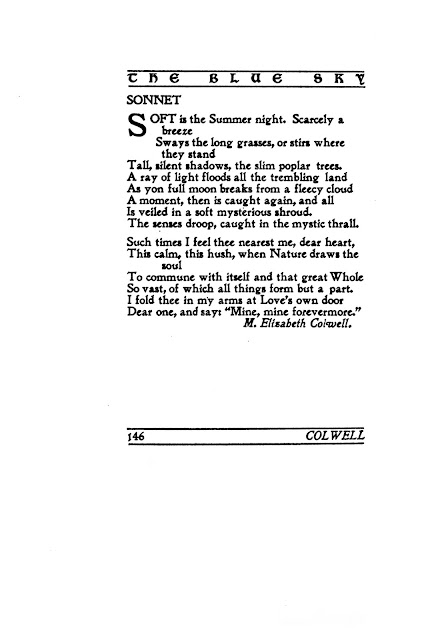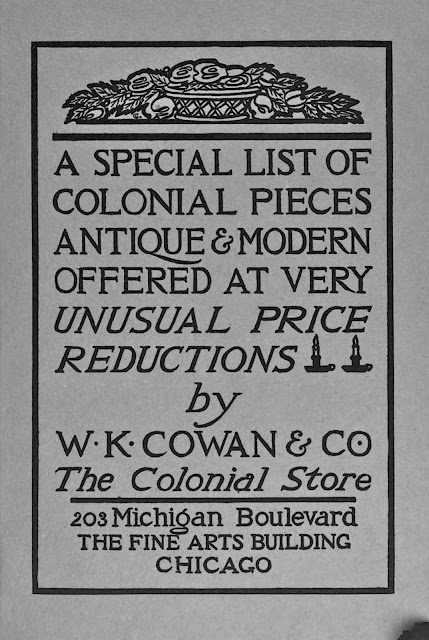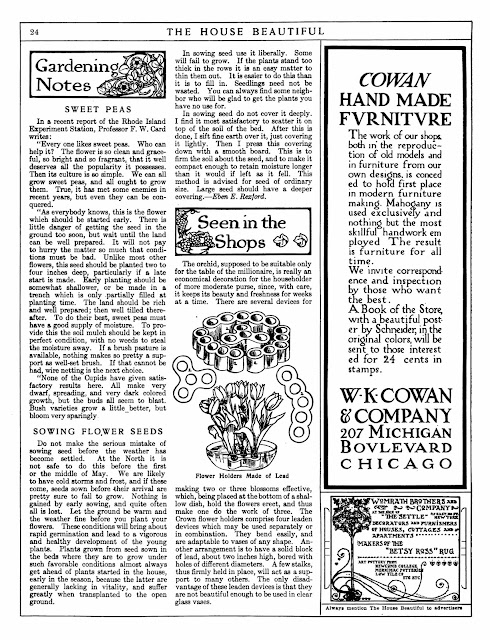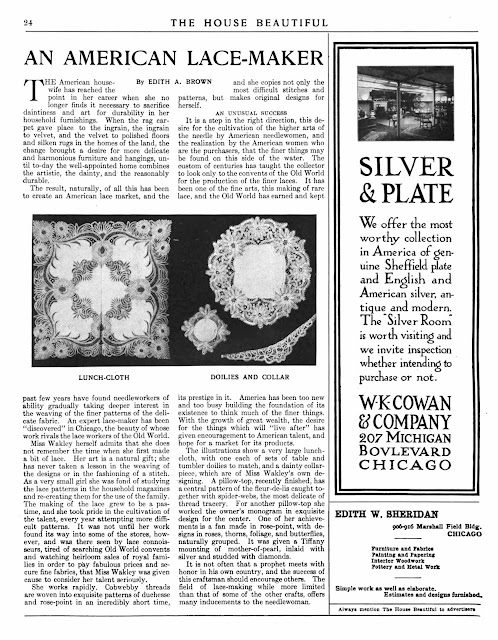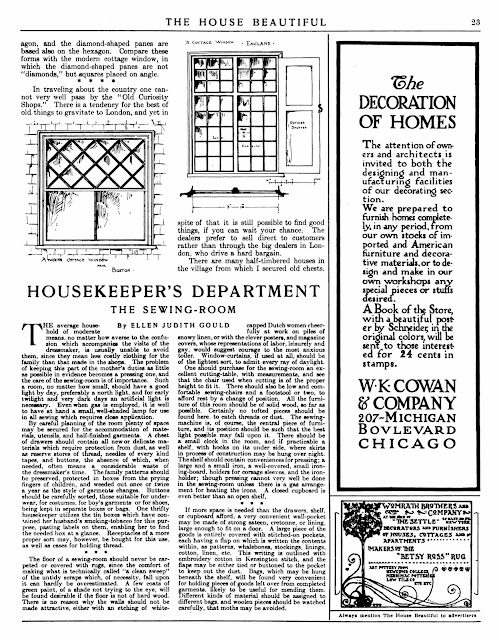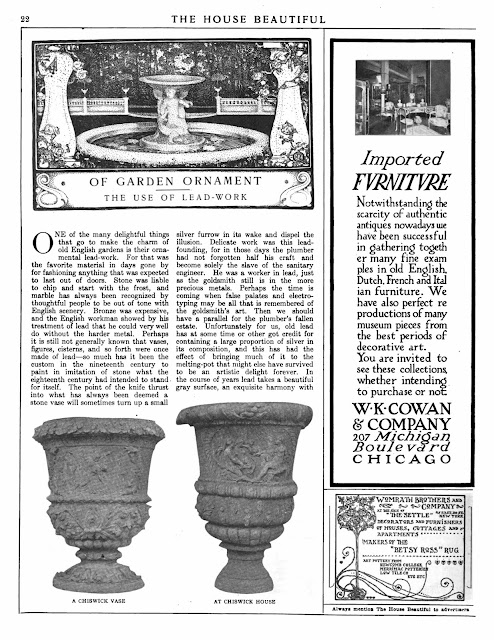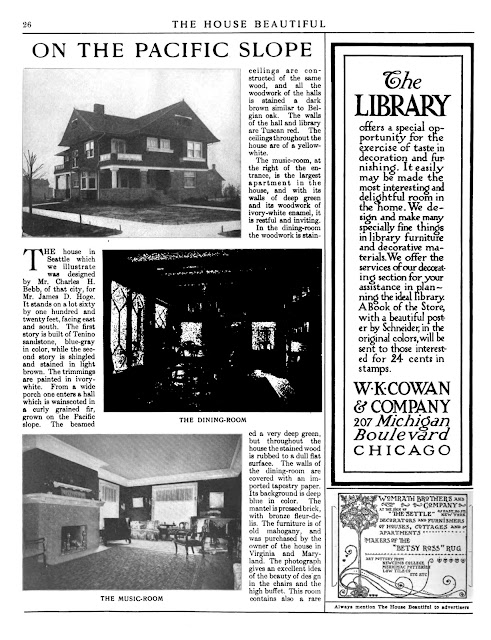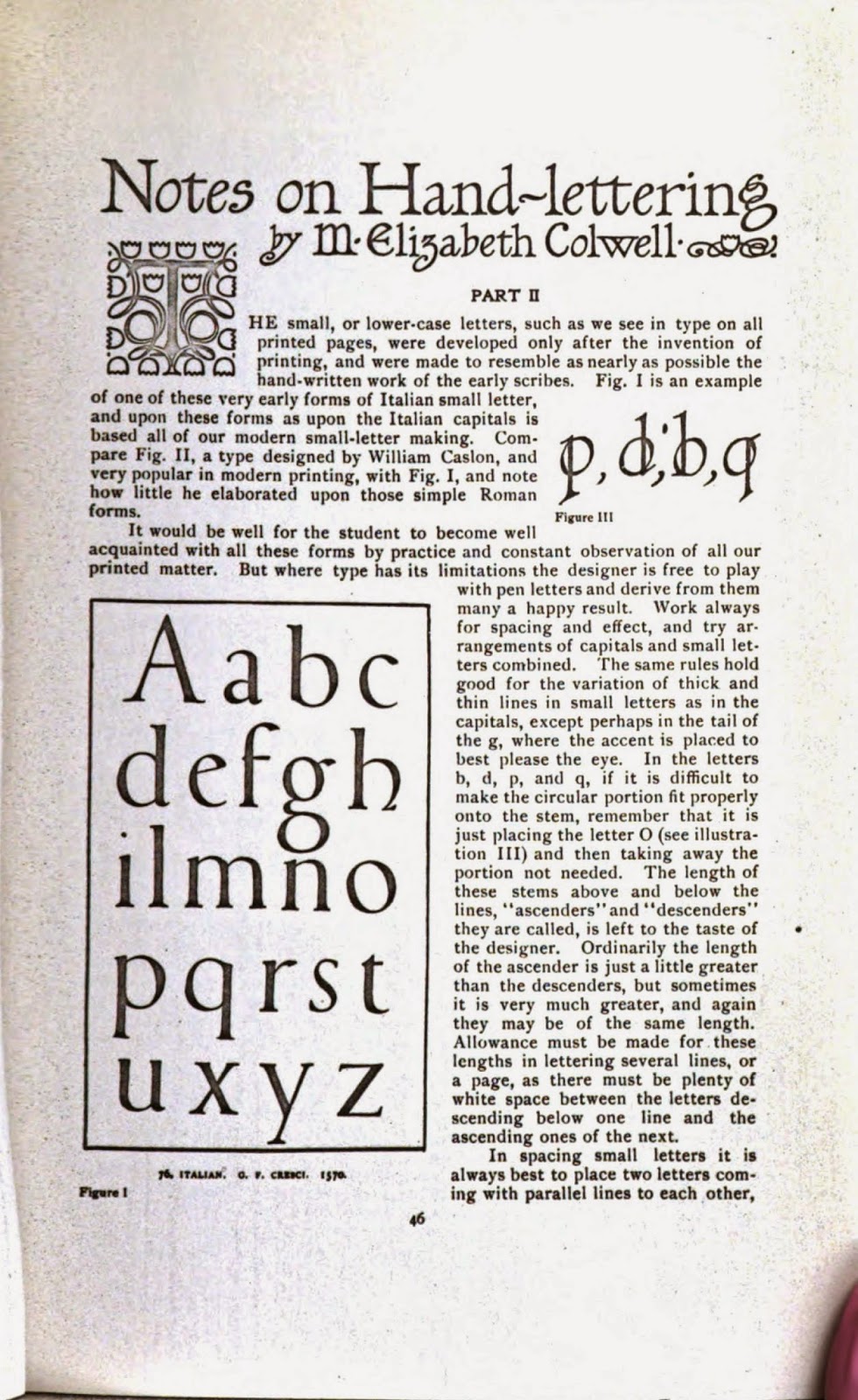
Martha Elizabeth Colwell was born in Bronson, Michigan, on May 24, 1881, according to Who Was Who in American Art (1985). Her full name was found in the census records at Ancestry.com. Art of Today: Chicago 1933 (1932) said she was born near Bronson. The 1880 U.S. Federal Census recorded Colwell’s parents, Elisha and Nancy, and siblings, Frederic, Albert, Fernando, William and Laura. They lived on a farm in Burr Oak, about 6 miles / 9.7 kilometers west of Bronson.
Information regarding Colwell’s childhood and education has not been found. According to the 1940 census, Colwell completed her fourth year of high school, presumably in Michigan.
Apparently after finishing high school, Colwell moved to Chicago to pursue her art training. The American Art Annual, Volume X (1913) said she was a pupil of John Vanderpoel and Bror Julius Olson Nordfeldt, both instructors at the Chicago Art Institute. The Art Institute’s Circular of Instruction of the School of Drawing, Painting, Modelling, Decorative Designing and Architecture, 1902–1903, listed Colwell in the Department of Painting and Drawing’s Life Class for 1901 to 1902.
In 1899 she met Thomas Wood Stevens (1880–1942) who would become an artist, teacher, author, and theater director. Chicago History, Fall and Winter 1982, said: “Early in 1899, Fred Langworthy, Tom Stevens, and Alden Noble, all students at the new Armour Institute at 33rd and Federal streets, began setting up printing equipment and type in the basement of Stevens’s apartment…” Their Blue Sky Press printed limited edition books and a literary journal, The Blue Sky.
Colwell contributed to The Blue Sky. Her poems, “A Picture” and “Returns” appeared in the October and November 1899 issues. A bound volume of the 1899 issues of The Blue Sky can be viewed here. Unfortunately, most of October and all of the November issues are missing. The January 1900 issue published Colwell’s ”Poster Gossip: A Fantasy” (below) which was illustrated by her, Edward Penfield (page 19) and Frank Hasenplug (page 20). The following month saw of her two triolets, “In Church” and “Shy Company,” in print. Most of that issue is missing in the volume. Her “Sonnet” (below) was published in June 1900.
In 1899 she met Thomas Wood Stevens (1880–1942) who would become an artist, teacher, author, and theater director. Chicago History, Fall and Winter 1982, said: “Early in 1899, Fred Langworthy, Tom Stevens, and Alden Noble, all students at the new Armour Institute at 33rd and Federal streets, began setting up printing equipment and type in the basement of Stevens’s apartment…” Their Blue Sky Press printed limited edition books and a literary journal, The Blue Sky.
Colwell contributed to The Blue Sky. Her poems, “A Picture” and “Returns” appeared in the October and November 1899 issues. A bound volume of the 1899 issues of The Blue Sky can be viewed here. Unfortunately, most of October and all of the November issues are missing. The January 1900 issue published Colwell’s ”Poster Gossip: A Fantasy” (below) which was illustrated by her, Edward Penfield (page 19) and Frank Hasenplug (page 20). The following month saw of her two triolets, “In Church” and “Shy Company,” in print. Most of that issue is missing in the volume. Her “Sonnet” (below) was published in June 1900.
The Bachelor Book
March 1900
Below: The Blue Sky advertisement with names of the contributors
A notable contributor to The Blue Sky was Ralph Fletcher Seymour whose cover design was used and reused on the April, May and June 1900 issues. Seymour was profiled in Caxtonian, May 2011. Seymour was an inspiration to Colwell. There was no mention that he had an assistant or apprentice. Seymour taught decorative illustration at the School of the Art Institute where he was on staff from 1907 to 1918.
Another prominent Chicago lettering artist was Frederic W. Goudy, who taught lettering and ornament at Frank Holme’s School of Illustration. Goudy joined the school October 1, 1899. (A concise chronology of the School of Illustration was published in The Inland Printer, December 1899.) There is the possibility she was a student of Goudy, although in D.J.R. Bruckner’s book, Frederic Goudy (1990), there was no mention of Colwell, Seymour, Stevens or the Blue Sky Press. Colwell’s studying of lettering and ornament around this time fills a gap for part of 1899 and 1900, and would account for her entry into the commercial field in late 1902.
Colwell has not been found in the 1900 census. Her father was recorded in the census which said he was married but lived alone in Prairieville, Michigan. He passed away January 3, 1907.
As mentioned earlier, Colwell was student at Art Institute. The Catalogue of Students, 1901–1902 section had this address for her, 7343 Langley Avenue. In the Chicago Tribune, January 26, 1902, article, “Art Institute Students Publish a Magazine”, Colwell was identified as the associate editor of The Sketch Book, which was to debut February first.
So far, the earliest mention of Colwell, as a commercial artust, was found in Ad Sense, December 1902. James Howard Kehler operated an advertising company. (Two photographs of his office are here.) He ran a full-page advertisement about his new company, The Varied Industries. At the bottom was Kehler’s name in the middle and flanked by eight associates. On the left were Walter Whitehead (illustrator), Walter F. Holler, S.J. Kennedy (illustrator), and Oscar Lovell Triggs (writer). On the right were Thomas Hyde Warren (manager), M. E. Colwell (yellow highlight), Frederick Fursman (illustrator), and Addison Blakely (lawyer). Below is a screen-shot of a snippet of the advertisement. The text of the Varied Industries advertisement was excerpted in The American Printer, June 1903.